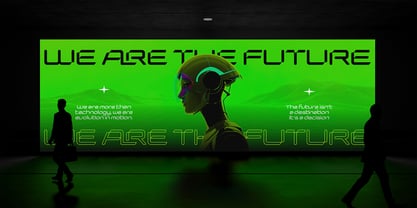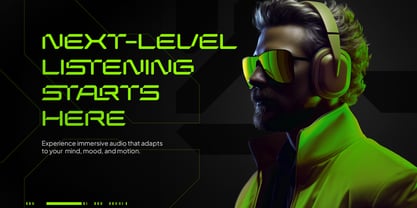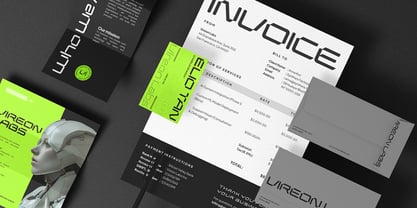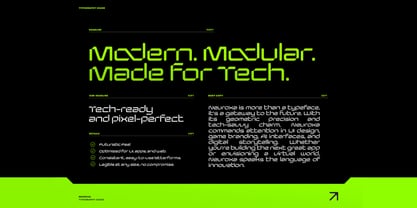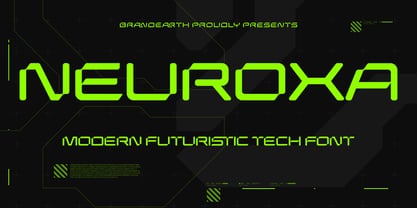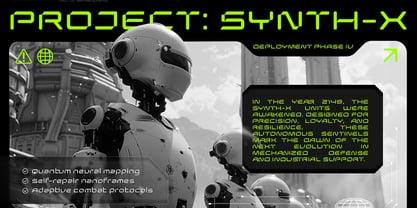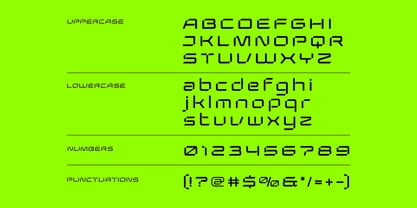
Neuroxa
by Brandearth
The Neuroxa Font Family was designed by Moch Rasjid Wiyono and published by Brandearth. Neuroxa contains 1 styles. More about this family
Neuroxa is a bold futuristic display typeface built with modular geometry, squared curves, and precision-cut terminals that create a sharp digital presence. The character set includes uppercase, lowercase, numerals, and punctuation with consistent stroke weight and clean spacing for maximum clarity on screens and large-scale layouts. Relevance and Use Cases is perfect for technology branding, gaming and esports visuals, UI/UX systems, app interfaces, dashboards, posters, digital campaigns, product launches, motion graphics, video titles, and any modern project that needs a sharp, futuristic, and high-impact typographic voice.
Designers: Moch Rasjid Wiyono
Foundry: Brandearth